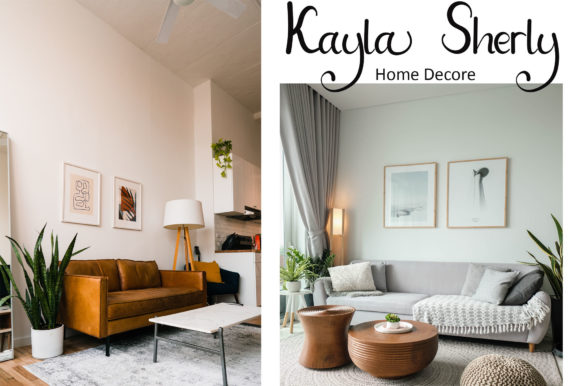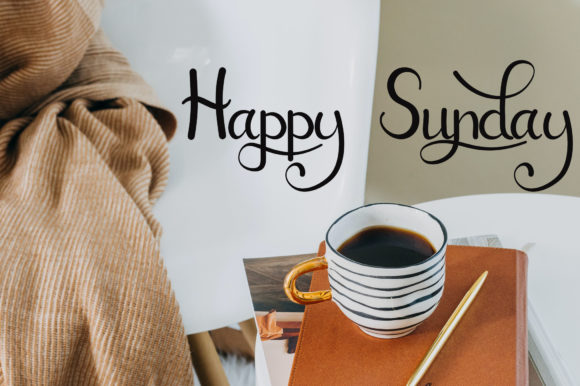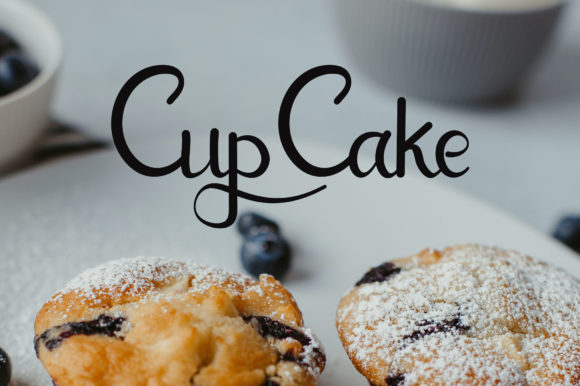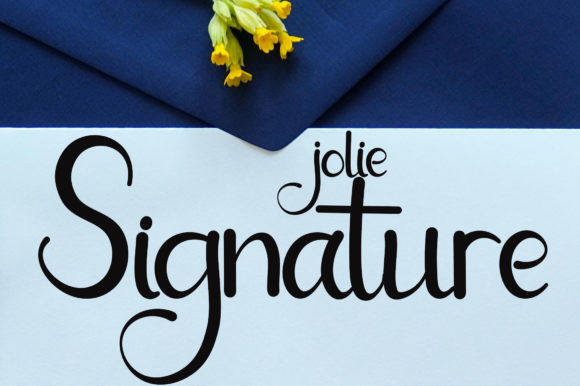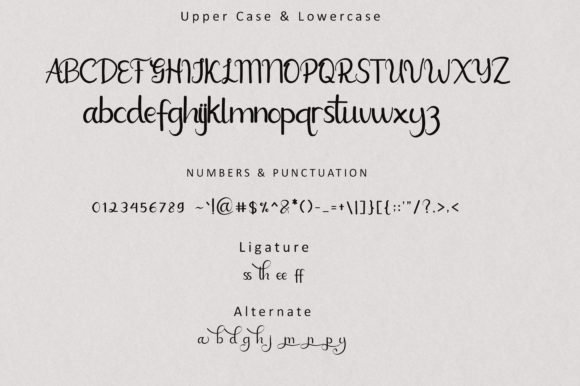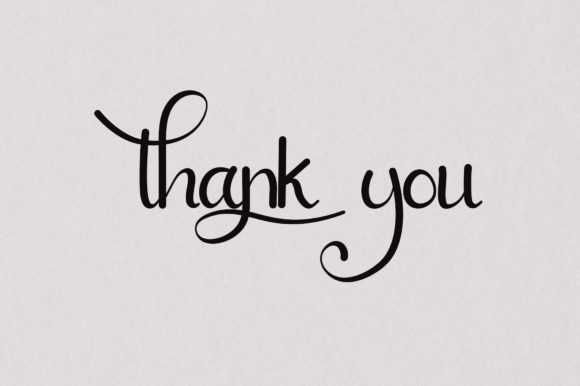
Discovering the Perfect Script
As a designer, you’ve probably found yourself in a creative moment, staring at a blank canvas, searching for the perfect script to bring your vision to life. Maybe it’s a wedding invitation, a heartfelt thank you card, or a custom logo – whatever the project, the right font can make all the difference. That’s where Bethaniya Font comes in – a unique and elegant handwritten font designed to add a touch of personality to your designs.
Bethaniya Font is more than just a font; it’s a way to express yourself and tell a story through your creations. Its versatility makes it perfect for a wide range of projects, from weddings and greeting cards to logos and branding materials. As a designer, you’ll appreciate the value of having a font that can adapt to any style or theme, making it an invaluable addition to your toolkit.
Bethaniya Font Key Features
- Font Family: Bethaniya Font is a unique and elegant script font that is perfect for various design applications.
- Unique Characteristics: Features a mix of elegance and sophistication, making it suitable for wedding invitations, branding, and luxury designs.
- Character Count: Includes a wide range of characters, including uppercase and lowercase letters, numbers, and punctuation marks.
Bethaniya Font Review
As a designer, I was excited to dive into the Bethaniya Font and see what it had to offer. ✨ First off, I think the font does a great job of capturing a unique and elegant aesthetic. The subtle curves and flair to the letterforms give it a touch of sophistication that I think could really work well in the right design.
One of the things that stands out to me about the Bethaniya Font is its versatility. ✨ It seems to work well in a variety of contexts, from body text to headings, and even as a display font. The font’s x-height is also quite well-balanced, making it easy to read in both digital and print formats.
- ⚠️ Limited language support – I noticed that the font only includes a limited set of languages, which may be a problem for designers working on global projects.
- ⚠️ Limited character set – The font’s character set is also somewhat limited, which may make it difficult to use for designers who need to include special characters or symbols.
- ⚠️ Not ideal for small text sizes – While the font looks great at larger sizes, I found that it starts to break down at smaller text sizes, which may be a problem for designers who need to use it for body text.
Overall, I think the Bethaniya Font is a solid choice for designers who are looking for a unique and elegant aesthetic. While it may have some limitations, I think it has a lot of potential for use in a variety of contexts. With a bit more development and expansion, I think this font could really become a standout in the design world.
Tips for Getting the Most Out of Bethaniya Font
For optimal results, use Bethaniya Font for headings and titles, as its unique design is best suited for emphasis. Use a clear and simple font for body text to avoid visual overload.
Bethaniya Font is ideal for:
- Event branding and marketing materials
- Creative and artistic projects
Comparison: Cambria has a more traditional look compared to Bethaniya Font, which has a more modern and elegant feel. While Bethaniya Font has a more flowing design, Cambria has a more rigid and structured design.
Playfair Display is an elegant and luxurious serif font that is perfect for titles and headings. It has a sophisticated and refined design that is great for making a statement. When to use: Titles, headings, and luxury branding.
Comparison: Playfair Display has a more ornate and luxurious design compared to Bethaniya Font, which has a more minimalist and elegant feel. While Bethaniya Font is great for body text, Playfair Display is better suited for titles and headings.
Q: What font sizes and styles are available in Bethaniya?
Bethaniya includes a range of font sizes and styles, including regular, bold, italic, and bold-italic. The font also includes a variety of OpenType features, such as ligatures, swashes, and contextual alternates, which can be accessed through your design software’s font menu.